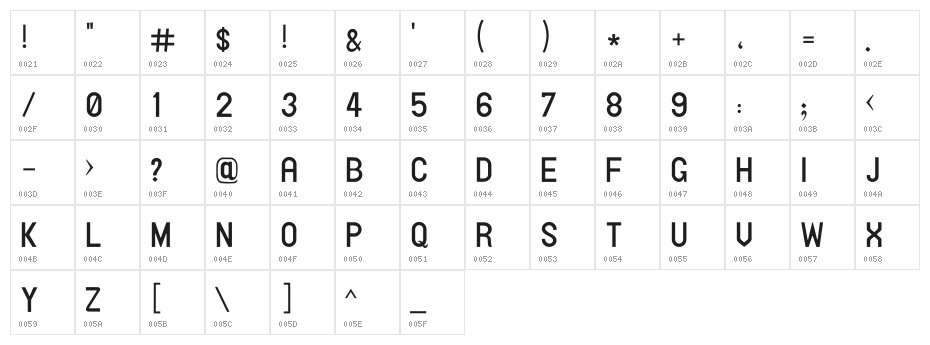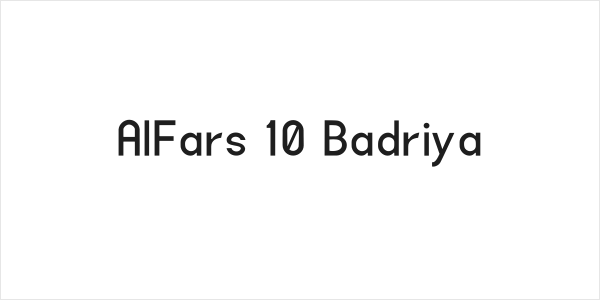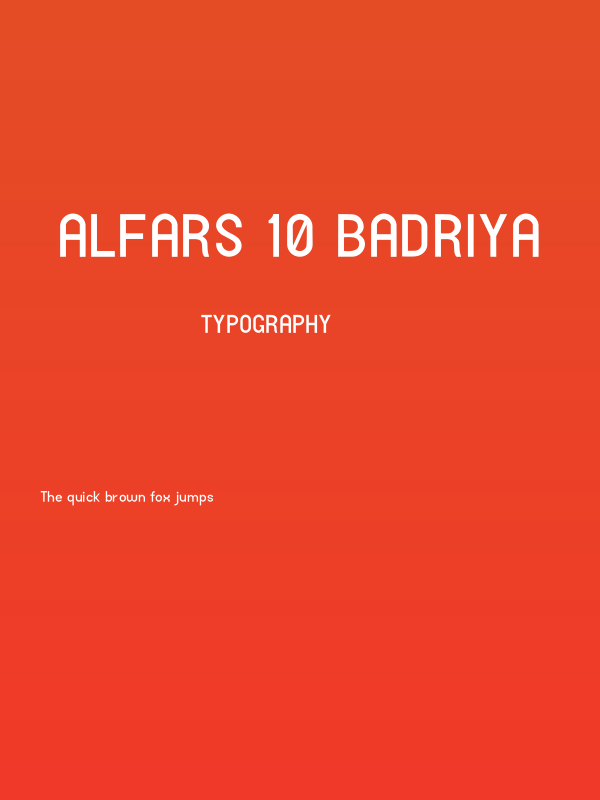
AlFars 10 Badriya Font
AlFars 10 Badriya Description
This font features a clean and modern sans-serif design, characterized by its geometric shapes and uniform stroke widths. The uppercase letters are bold and assertive, while the lowercase letters maintain a consistent style with rounded edges that soften the overall appearance. The numerals are clear and legible, matching the style of the alphabetic characters. Special characters are well-integrated, providing a comprehensive set for various uses. The font's simplicity and clarity make it versatile for both digital and print media.